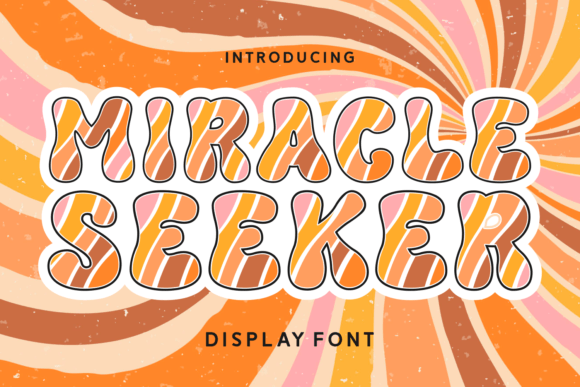
**Introducing Miracle Seeker: A Whimsical and Nostalgic Display Font**
Embark on a journey of creative wonder with Miracle Seeker, a display font that sparks the imagination and captivates the hearts of design enthusiasts. Its retro-inspired design, with its thick, striped characters, transports you to a realm of vintage charm and whimsical delight.
Miracle Seeker is not just a font; it's a portal to a world of artistic possibilities. Its playful nature invites you to experiment with colors and create stunning visuals that resonate with your unique style. Whether you're designing eye-catching posters, vibrant social media graphics, or enchanting invitations, Miracle Seeker empowers you to express your most fabulous ideas with a touch of retro magic.
**Why Choose Miracle Seeker?**
- Experience the allure of a retro-style font with thick, striped characters that evoke a sense of nostalgia and playful charm.
- Unleash your creativity with endless color combinations, allowing you to craft visuals that perfectly match your unique aesthetic.
- Make a bold statement with stunning posters, captivating social media graphics, and enchanting invitations that leave a lasting impression.
- Express your fabulous ideas with confidence, knowing that Miracle Seeker will add a touch of whimsy and vintage flair to your designs.